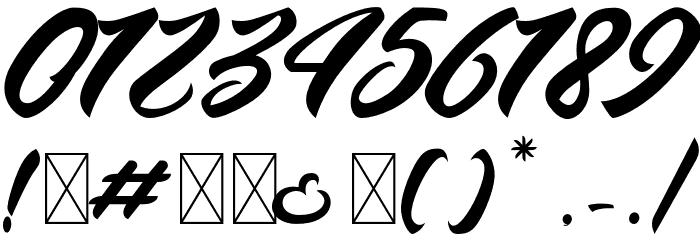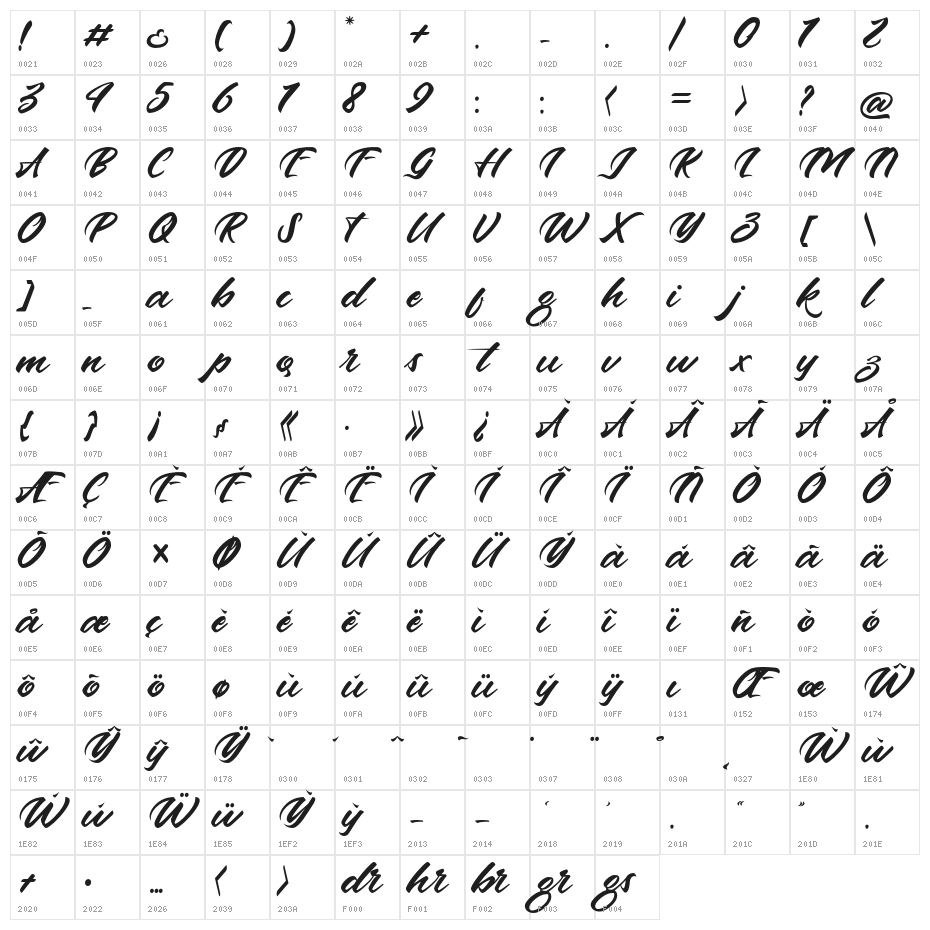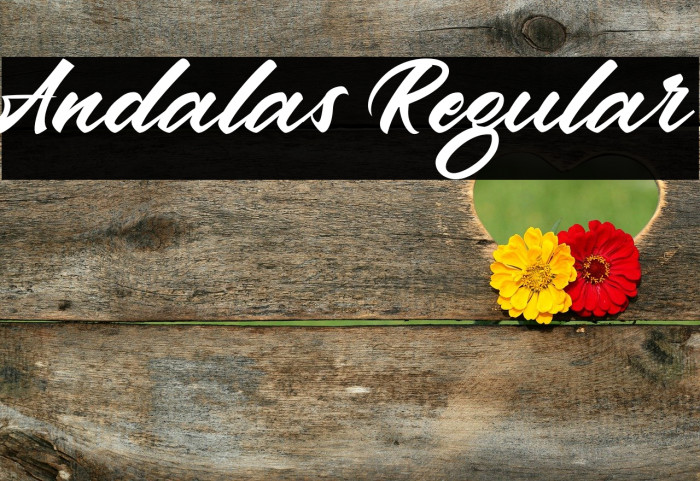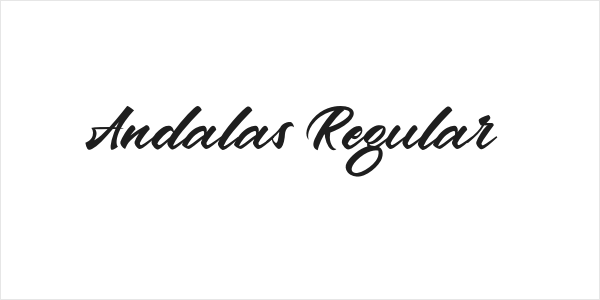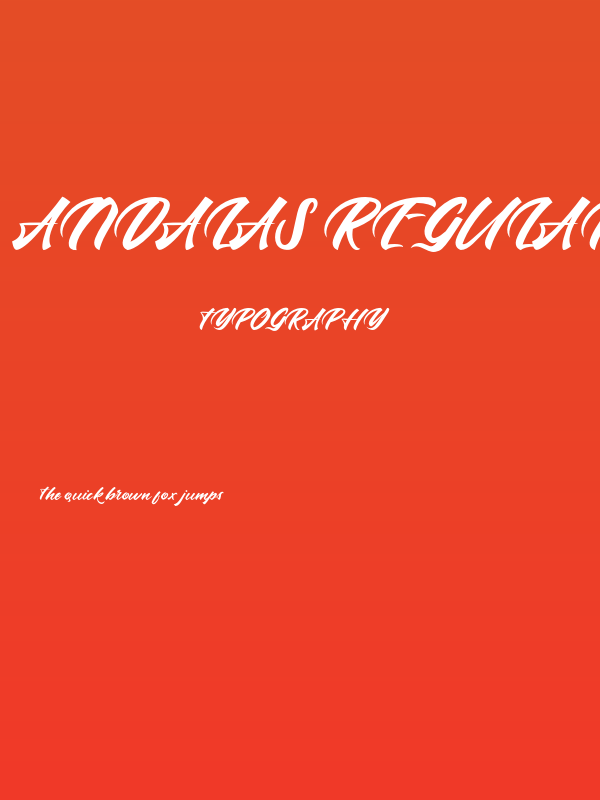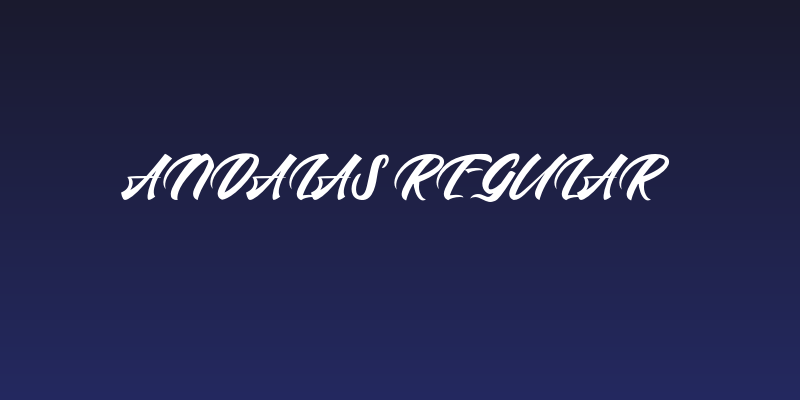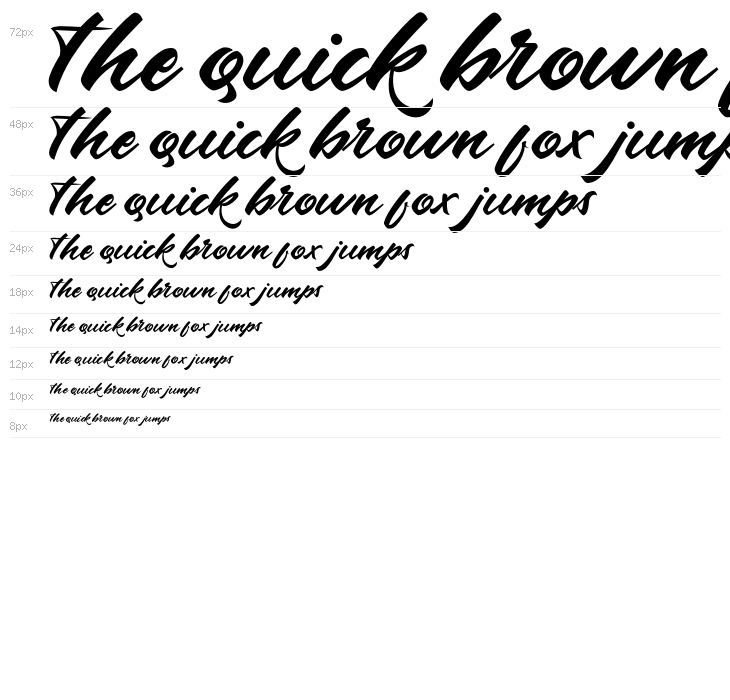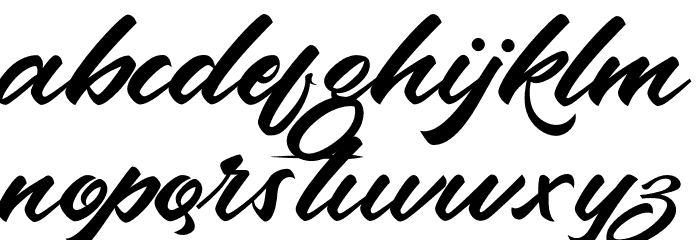
Andalas Regular Font
Andalas Regular Description
This font features a bold and expressive script style, characterized by its flowing, cursive letterforms. The uppercase letters are elegant and sweeping, with a dynamic slant that adds a sense of movement and grace. The lowercase letters maintain a consistent style, with smooth curves and a slightly exaggerated flair, enhancing the overall aesthetic. The numerals are bold and clear, matching the style of the alphabet, while the special characters are designed to complement the script's fluidity. This font is perfect for creating a sense of elegance and sophistication in any design project.
| Overall Style | Elegant, Expressive |
| Proposed Projects | Ideal for wedding invitations, branding, logo design, and elegant packaging. |